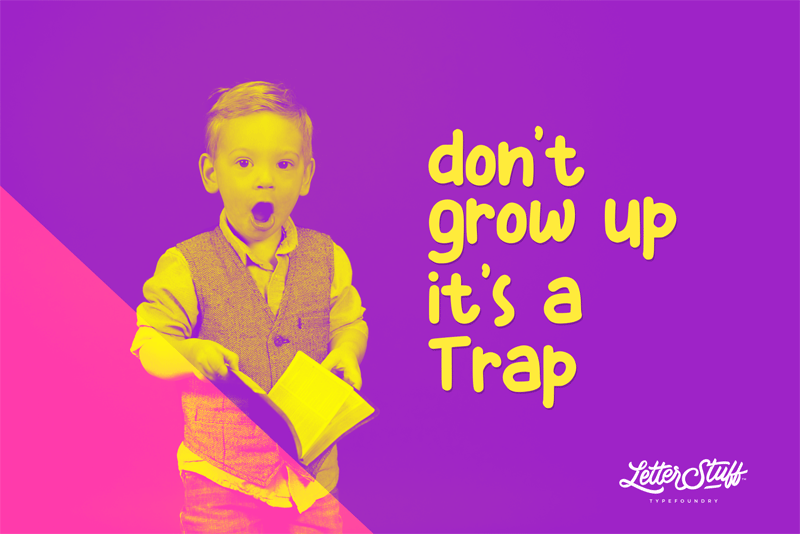
Kiddos was created based on marker with handwriting style. Fun and clean for your poster, comics, or quotes design. Please note : This demo font is ONLY FOR PERSONAL USE For commercial purpose and full version , get it here : https://crmrkt.com/RzvjdQ or contact me via message |